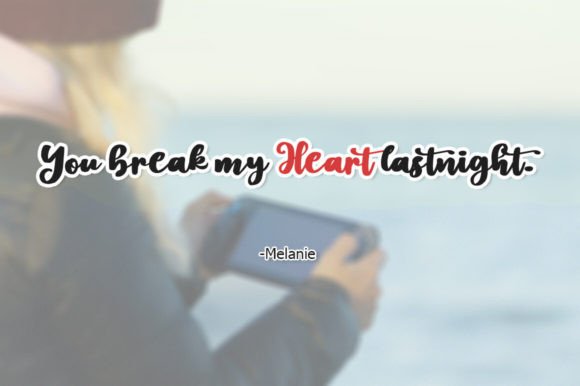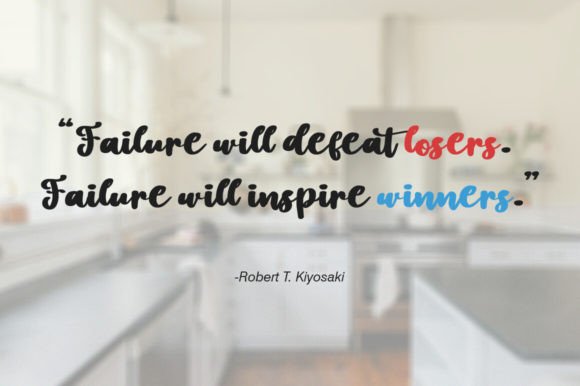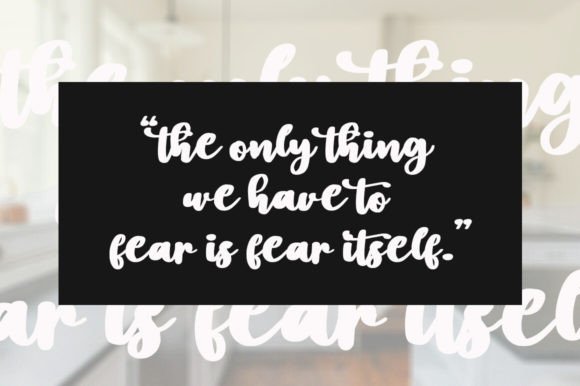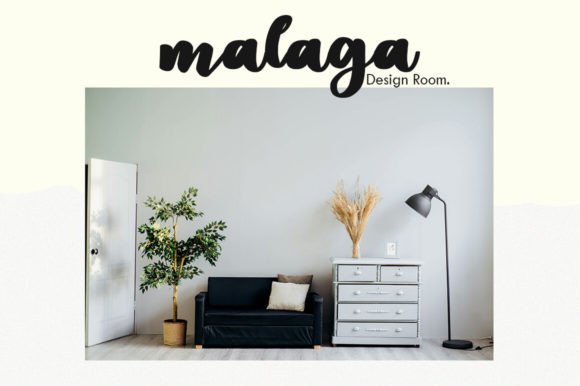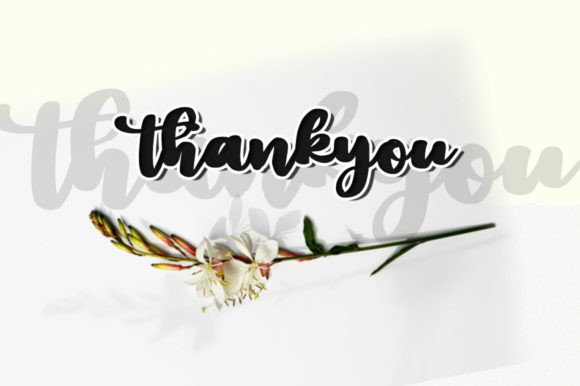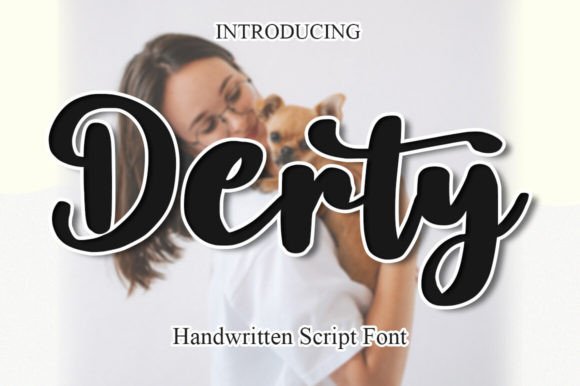
Derty Font: Elevate Your Designs with Elegance and Luxury
In the world of typography, fonts play a crucial role in conveying the tone and aesthetic of a design. For those seeking a typeface that embodies sophistication, style, and creative flair, look no further than the Derty Font. This stunning handwritten script font is designed to add a touch of class and elegance to any project, making it a perfect choice for designers and crafters alike.
The Essence of Derty Font
Derty Font is a masterful blend of elegance and luxury, boasting distinct lines that exude refinement and poise. Its unique, handwritten script style sets it apart from more traditional typefaces, offering a fresh and modern approach to typography. Whether you’re working on a high-end branding project, a stylish packaging design, or a sophisticated editorial piece, Derty Font is sure to make a lasting impression.
Key Features of Derty Font
- Handwritten Script Style: Derty Font features a beautiful, handwritten script style that adds a personal touch to any design.
- Elegant Lines: The font’s distinct lines are carefully crafted to convey sophistication and style.
- Luxury Appeal: Derty Font is perfect for projects that demand a touch of luxury and high-end appeal.
- Creative Flair: The font’s unique style allows for creative freedom, making it ideal for designers looking to add a dash of personality to their work.
Derty Font is an incredibly versatile typeface, suitable for a wide range of design applications. Some of the projects that can benefit from this stunning font include:
- Branding and Logo Design: Use Derty Font to create a sophisticated brand identity that exudes elegance and luxury.
- Packaging Design: Add a touch of class to your packaging designs with Derty Font’s refined, high-end style.
- Editorial Design: Elevate your editorial pieces, such as magazines, newspapers, and books, with Derty Font’s elegant, sophisticated aesthetic.
- Wedding and Event Design: Make your wedding or event invitations, programs, and decor truly special with Derty Font’s beautiful, handwritten script style.
Tips for Using Derty Font
To get the most out of Derty Font, consider the following tips:
- Pair with Neutral Backgrounds: Allow Derty Font to take center stage by pairing it with neutral backgrounds that won’t compete for attention.
- Experiment with Colors: Try pairing Derty Font with a range of colors to find the perfect combination that enhances its elegance and sophistication.
- Use for Headlines and Titles: Derty Font is perfect for headlines and titles, where its unique style can make a lasting impression.
In conclusion, Derty Font is a truly exceptional typeface that embodies the perfect blend of elegance, luxury, and creative flair. Its stunning handwritten script style, distinct lines, and sophisticated aesthetic make it an ideal choice for designers and crafters looking to elevate their designs. Whether you’re working on a high-end branding project, a stylish packaging design, or a sophisticated editorial piece, Derty Font is sure to deliver a lasting impression.